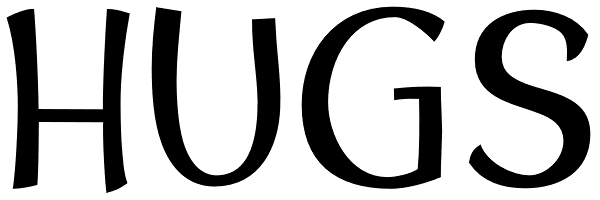
HUGS
HUGS is a font inspired by children at play and explorative good-natured spirit. With a bit of a bounce and a whole lotta whimsy this headline font has a hand-drawn charm and a wiggly lightheartedness. Originally created for a great American diaper...